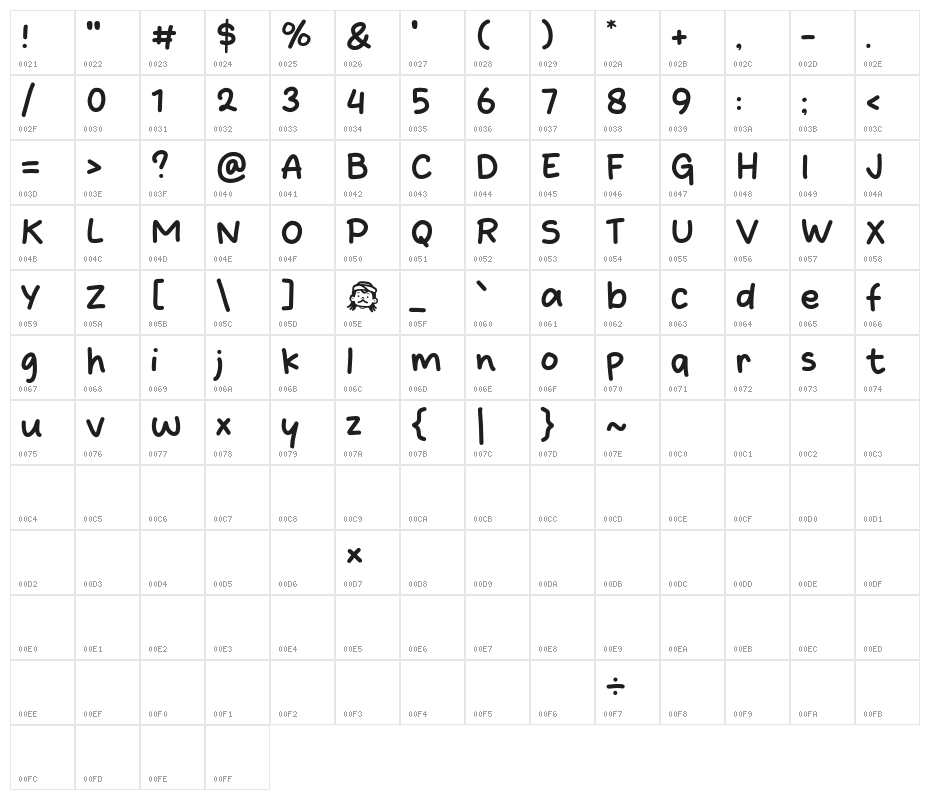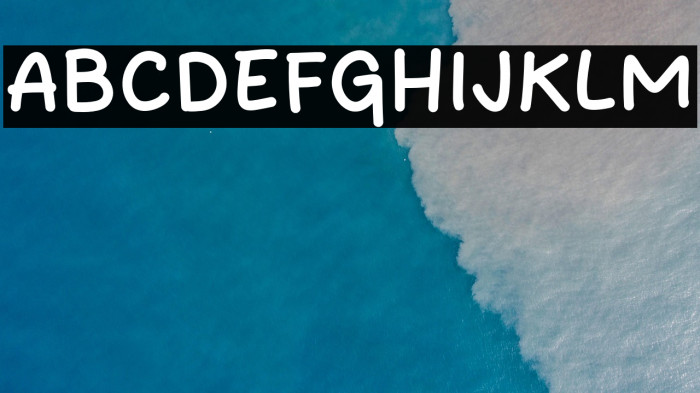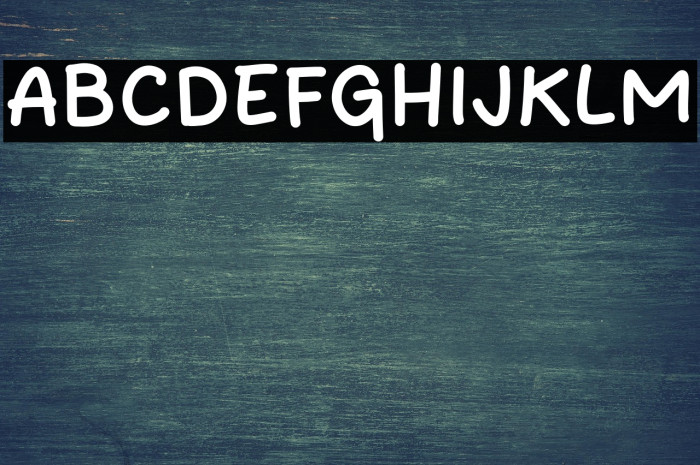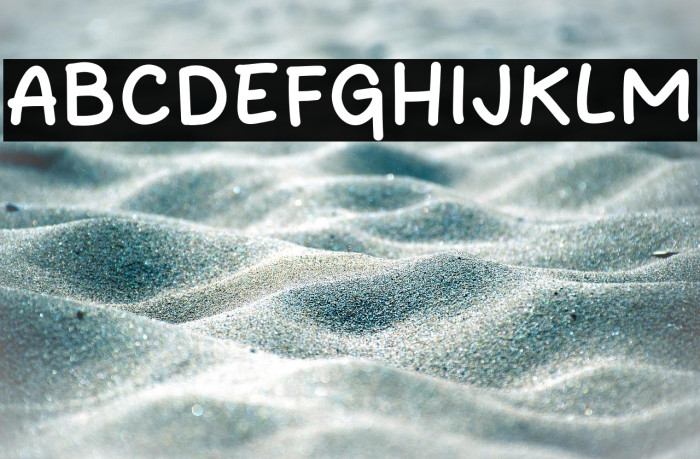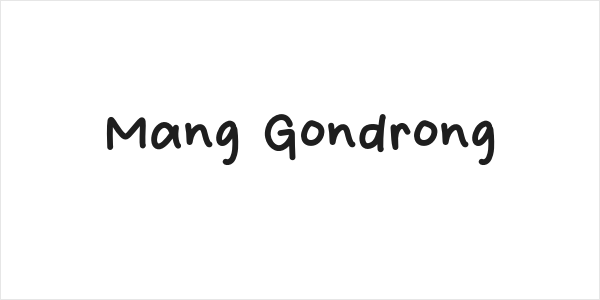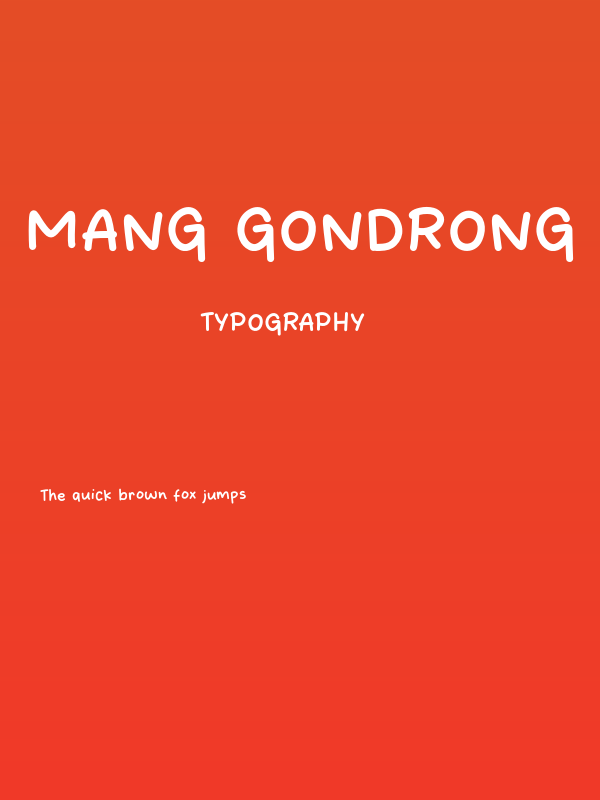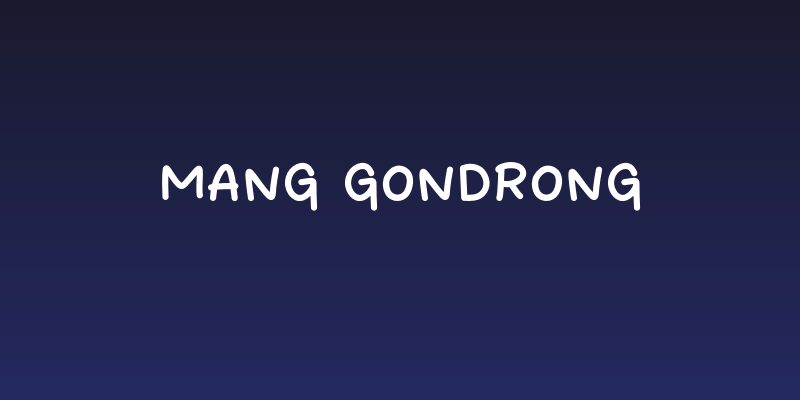
Mang Gondrong Font
Mang Gondrong Description
This playful and casual font features a handwritten style with rounded edges and a friendly appearance. The characters are slightly irregular, giving it an informal and approachable feel. The uppercase and lowercase letters maintain a consistent style, with a slight tilt that adds to its whimsical nature. The numerals and special characters are designed to match the overall aesthetic, ensuring a cohesive look across all text. This font is perfect for projects that require a personal touch or a fun, lighthearted vibe.
| Use Case | Headlines, Informal text, Branding |
| Proposed Projects | Ideal for children's books, greeting cards, playful branding, and social media graphics. |